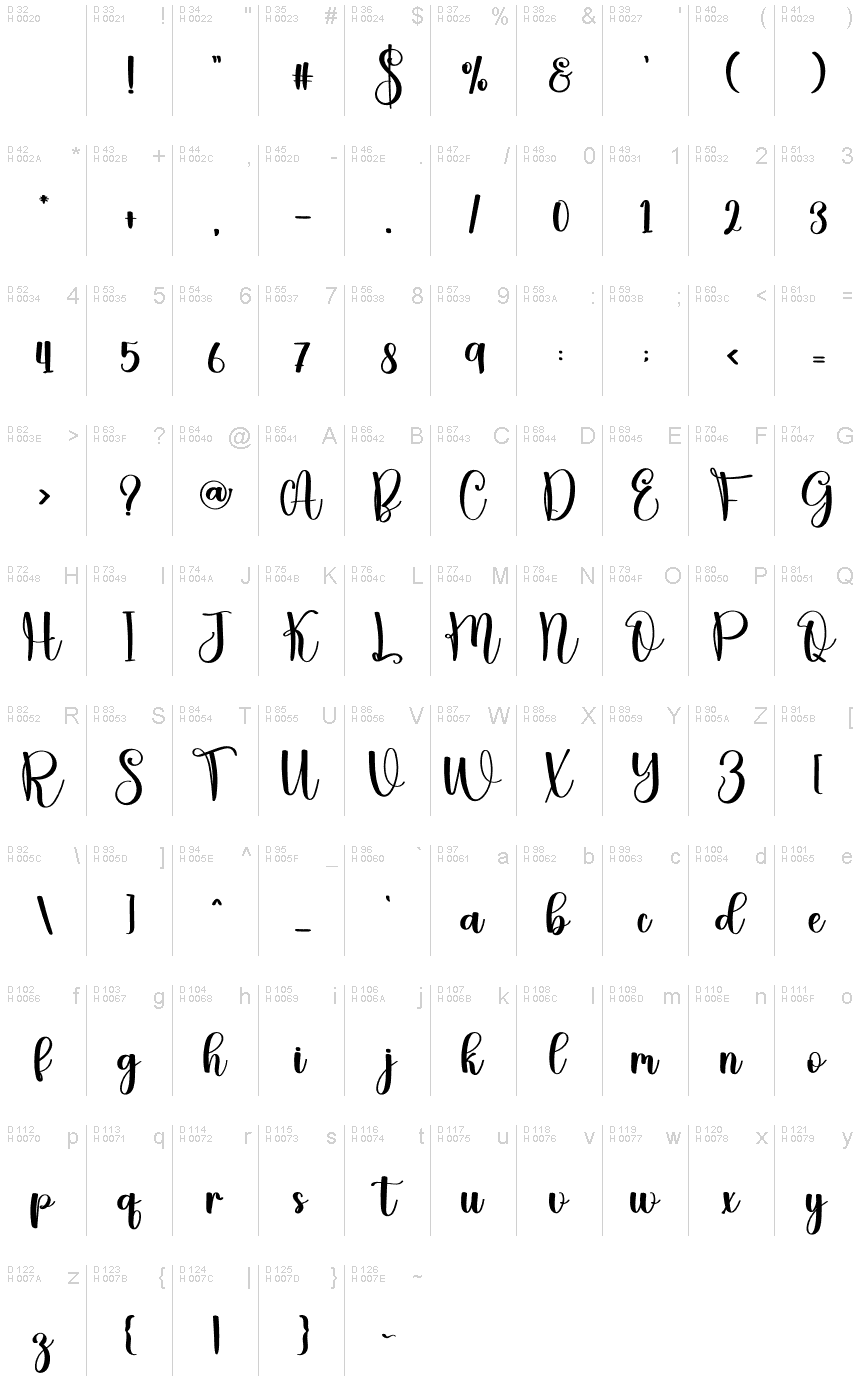
Amellda
Amellda, crafted by renowned designer FreshtypeINK, embodies the elegance and grace of calligraphy. With its semi-light weight, this font adds a touch of sophistication to any project. Perfect for wedding invitations, luxury branding, or editorial designs seeking a refined aesthetic. Amellda's flowing strokes and gentle curves create an exquisite balance between modernity and tradition. Whether it's a logo design for an upscale restaurant or a fashion magazine layout, Amellda brings an air of class to your creative endeavors. Elevate your projects with this font that captivates hearts and minds alike.